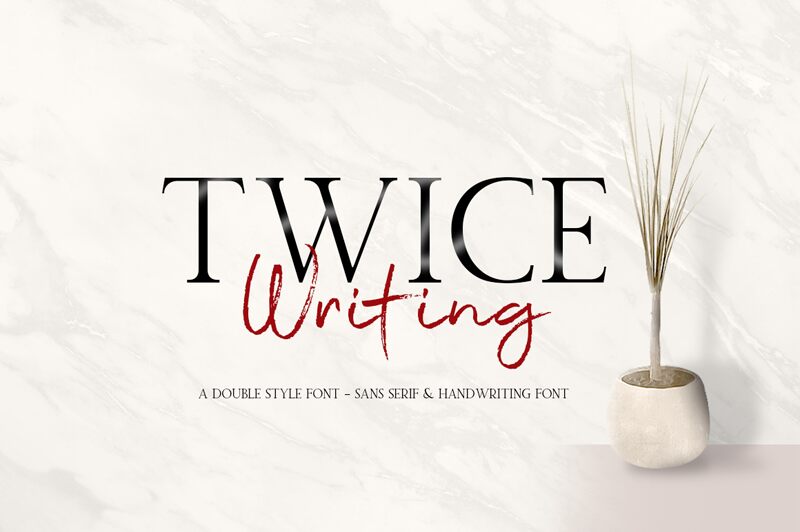
Twice Writing
Twice Writing, designed by Khurasan, is a captivating dry brush font with a semi-light weight. This versatile typeface exudes an artistic and expressive feel, making it perfect for projects that require a touch of creativity. Its bold strokes and textured appearance lend themselves well to logo designs, branding materials, and packaging. Additionally, Twice Writing's unique style lends itself beautifully to invitations, greeting cards, and social media graphics. Embrace the whimsical charm of this font to add a dash of personality and flair to your design projects.